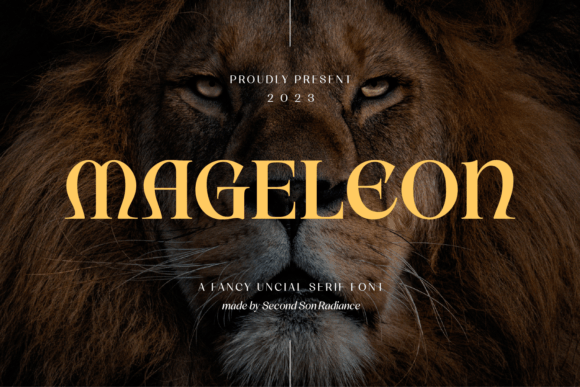
Introducing Mageleon Font, the latest creation by Second Son Radiance, designed to bring your design ideas to life with a touch of elegance and charm. As a classic and fancy serif font, Mageleon is perfect for those looking for a font that adds a touch of sophistication to their projects.
Are you in the market for a font that can help you elevate your branding and take it to the next level? Look no further than Mageleon. This font is perfect for luxury logo and branding design, creating a sense of class and high-end style that will make your business stand out.
But that's not all - Mageleon is also perfect for editorial design, including magazines and other publications. Its classic look is perfect for creating a sense of nostalgia and sophistication, adding a touch of class to any publication.
If you're in the cosmetic industry, Mageleon is an ideal choice for your branding and packaging. It exudes elegance and luxury, creating a sense of sophistication that will make your products stand out from the competition.
Whether you're creating special event invitations or designing for any other project, Mageleon Font is a great choice. Its unique and captivating style will ensure your project is noticed and remembered for years to come.